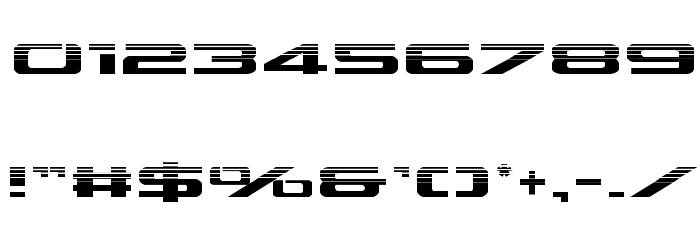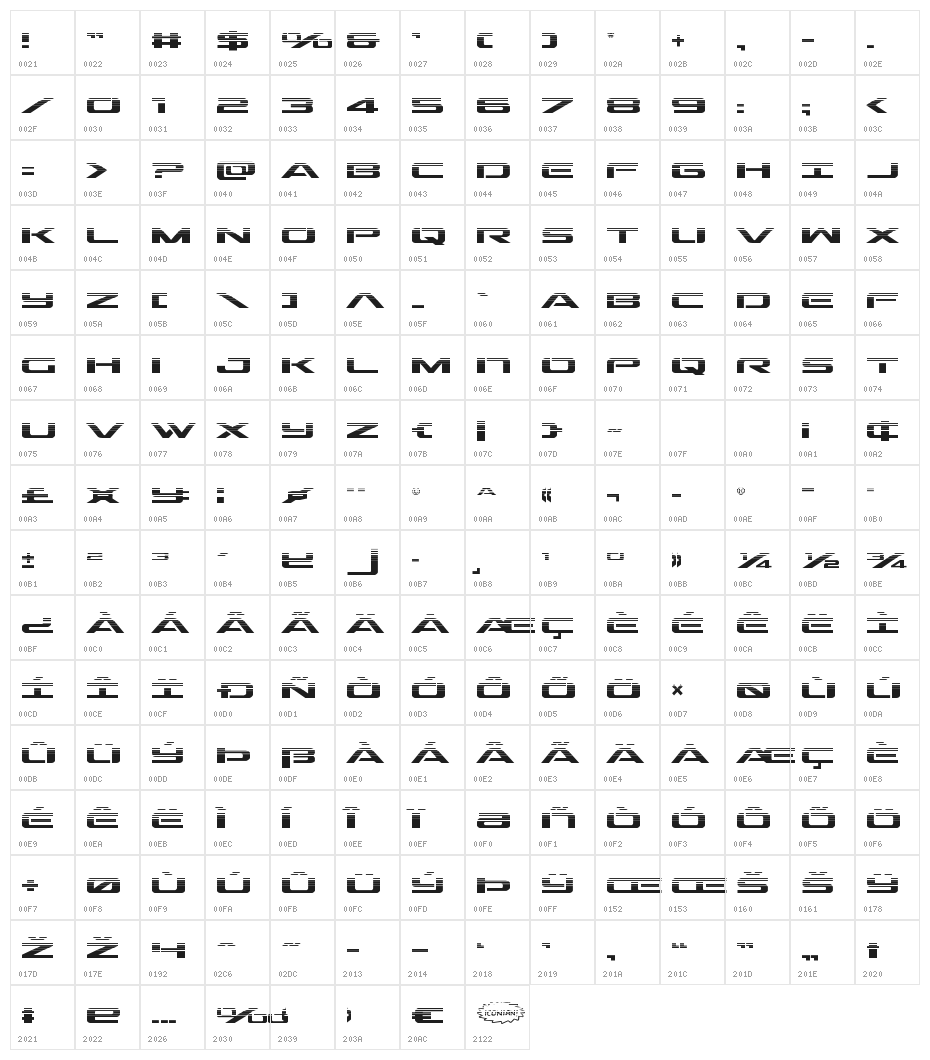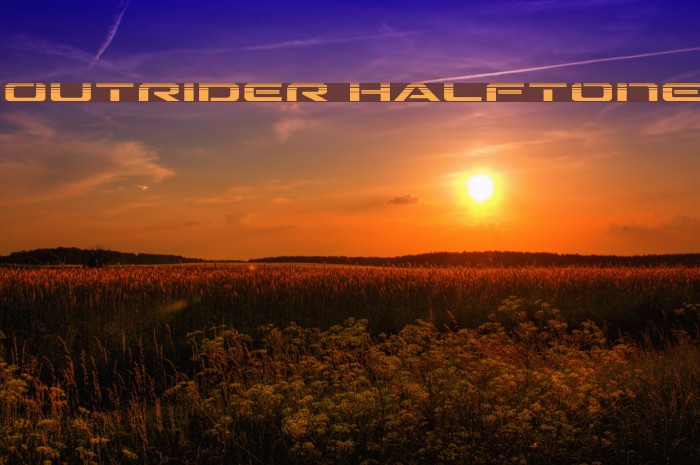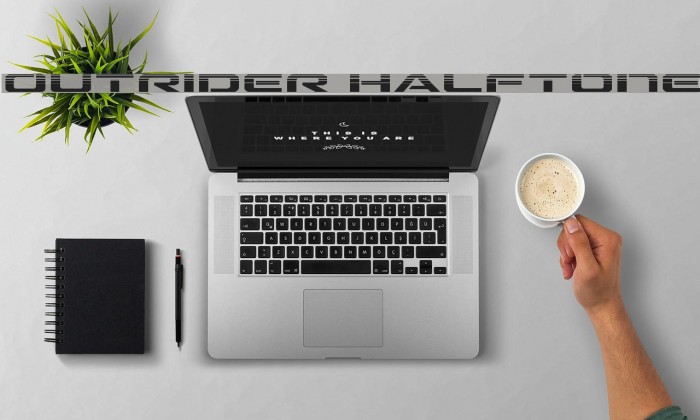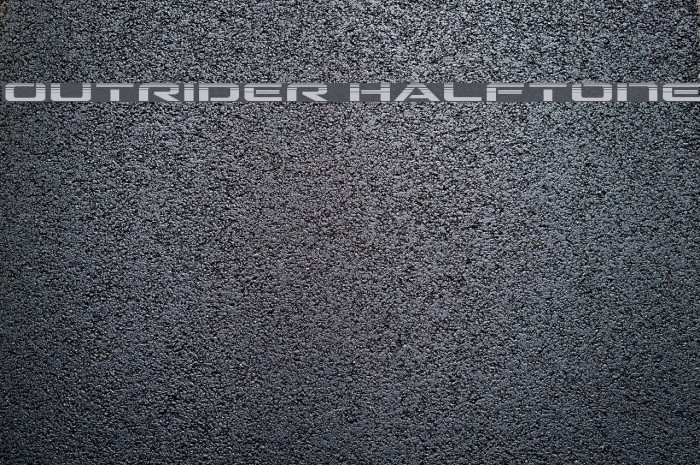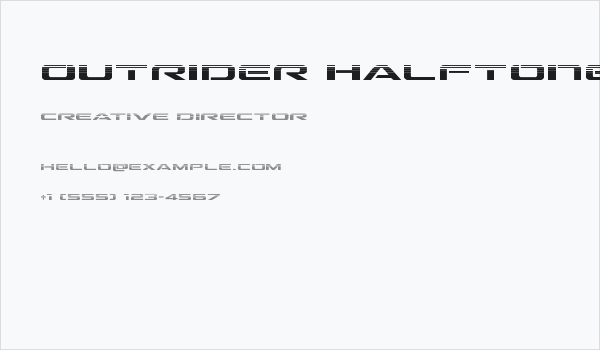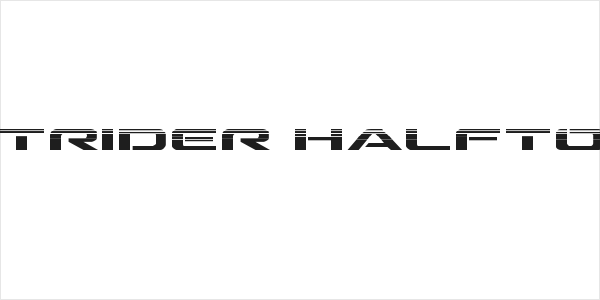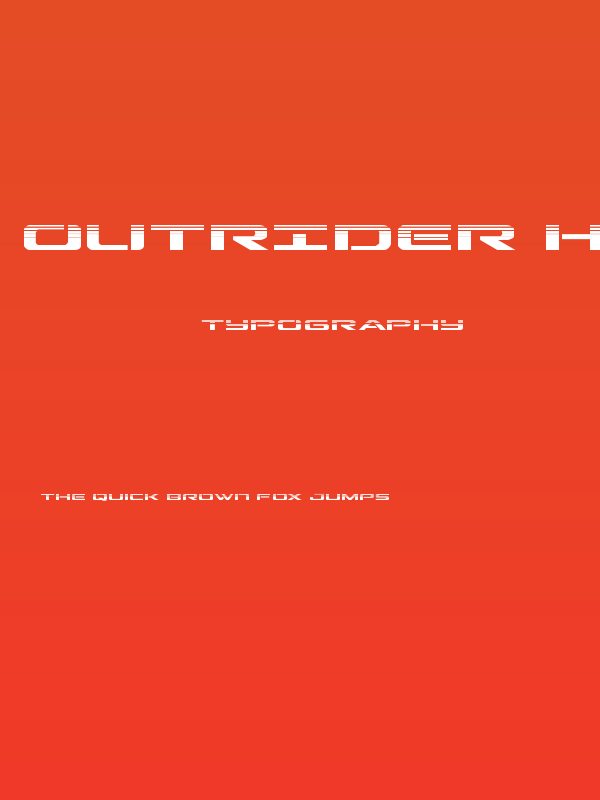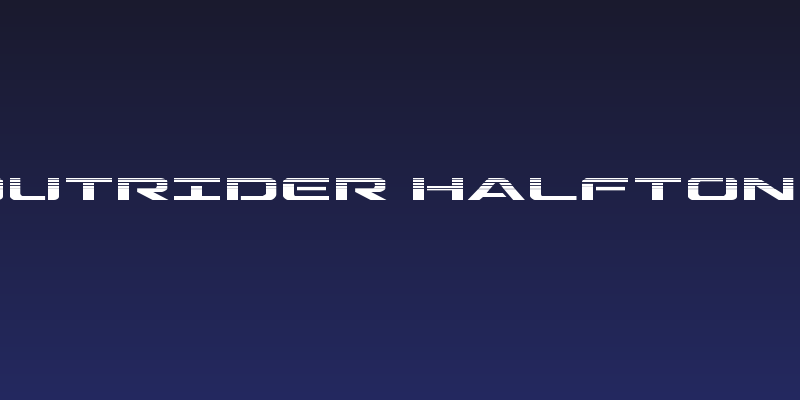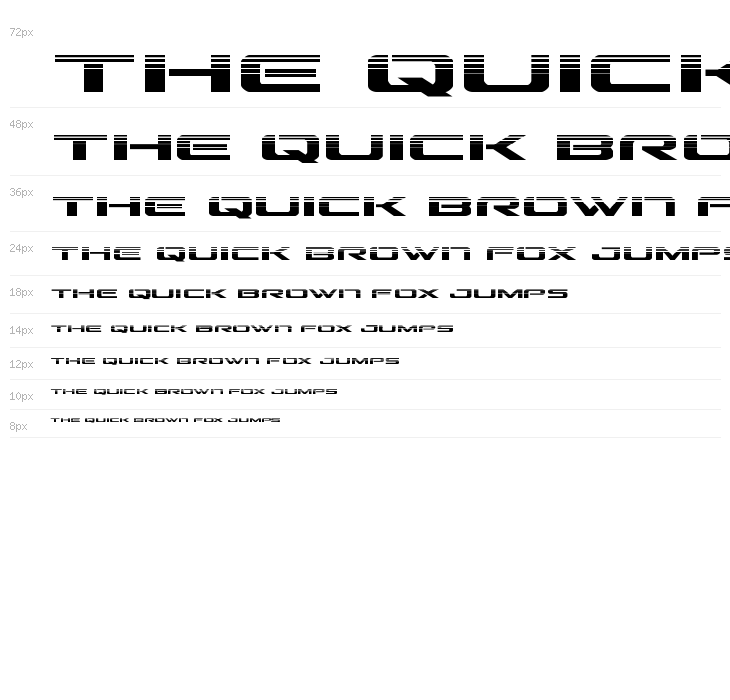
Outrider Halftone Font
Outrider Halftone Description
This font features a bold, futuristic design with a halftone effect that gives it a unique, digital appearance. The characters are wide and have a distinct geometric style, with sharp angles and a sense of movement. The halftone pattern within each letter adds texture and depth, making it stand out in any design. It's perfect for projects that require a modern and edgy look, such as tech-related branding or sci-fi themed graphics. The font maintains consistency across uppercase, lowercase, numbers, and special characters, ensuring versatility in its application.
| Proposed Projects | Ideal for tech branding, sci-fi themes, digital art, and modern posters. |